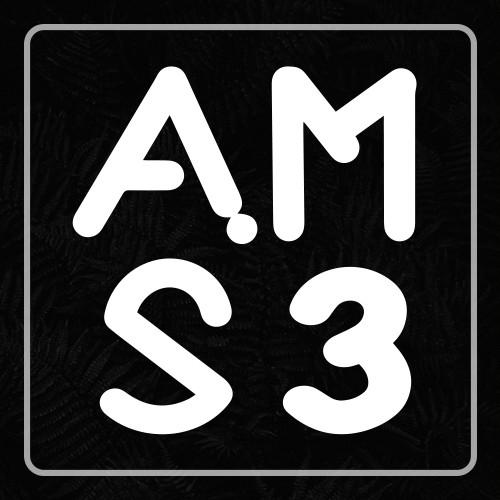
Baby Dino Font Description
Baby Dino is a playful and cool display font designed for children projects and designs. Whether you’re using it for crafts, digital design, presentations, or making greeting cards, this font has the potential to become your favorite go-to font, no matter the occasion!